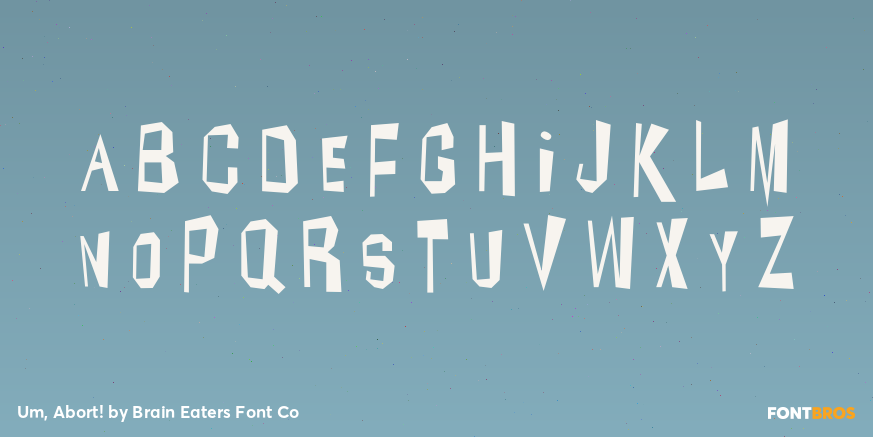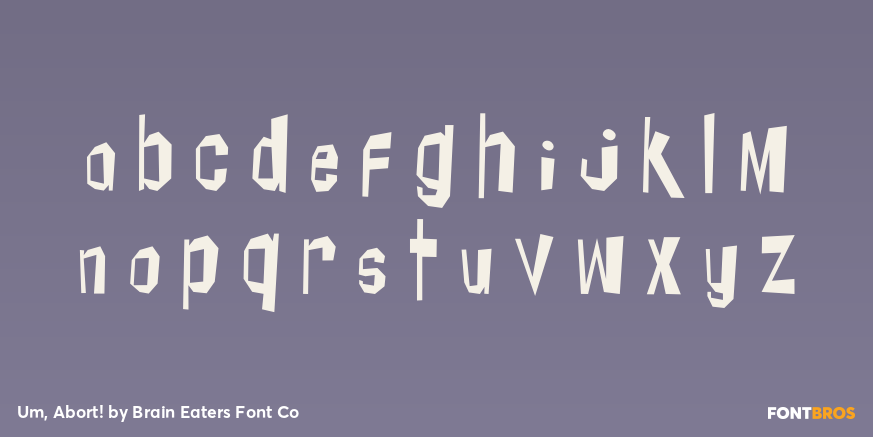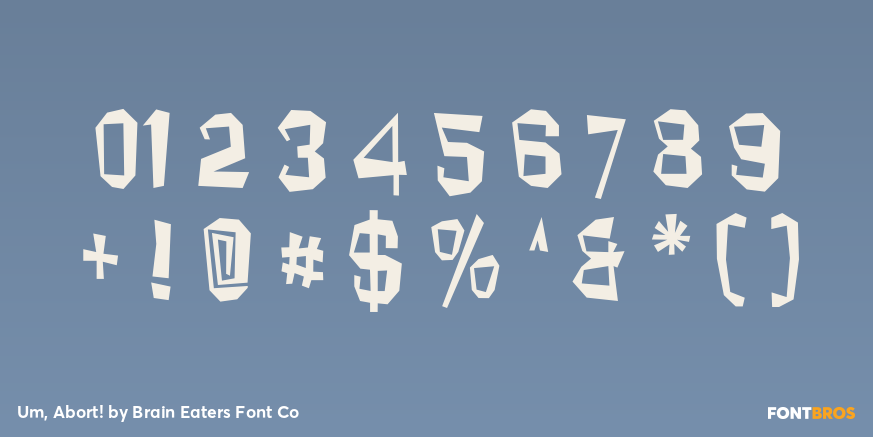
Um, Abort!
Um, Abort! is a playful retro display family from Brain Eaters Font Co with a wacky, mid-century feel. Tagged with 1940s, 1950s, and 1960s influences, it brings a fun, offbeat personality that feels made for attention-grabbing type.
The family includes 2 styles—Regular and Tubby—giving you a couple of ways to lean into its lively character. It’s a strong fit for posters, signage, themed branding, packaging, apparel graphics, and other decorative display work where a quirky vintage voice can really stand out.
If you’re after letterforms with retro charm and a humorous edge, this family offers an easy way to add bold personality without losing its classic throwback appeal.